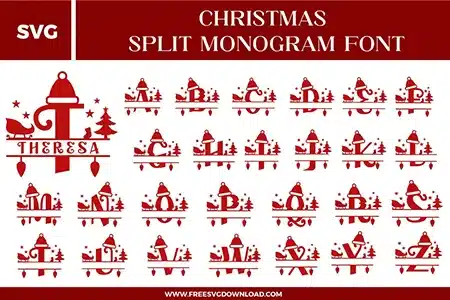
Christmas Split Monogram Font Free SVG File
A complete set of red Christmas Split Monogram Font free svg files featuring the full alphabet A-Z. Each uppercase letter is designed with a Santa hat on top, a sleigh and reindeer silhouette, a pine tree, stars, and hanging Christmas light bulbs. The design features a horizontal split in the middle for personalized name insertion, shown in a deep festive red color.
• Christmas Split Monogram SVG: Full uppercase alphabet set designed in a festive split monogram style, featuring Santa hats, sleigh accents, stars, Christmas trees, hanging ornaments, and a centered name bar built into each letter layout.